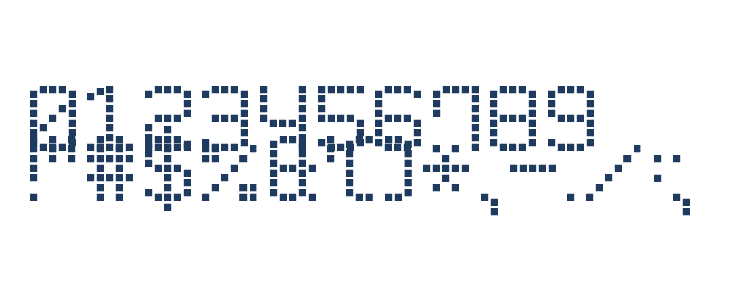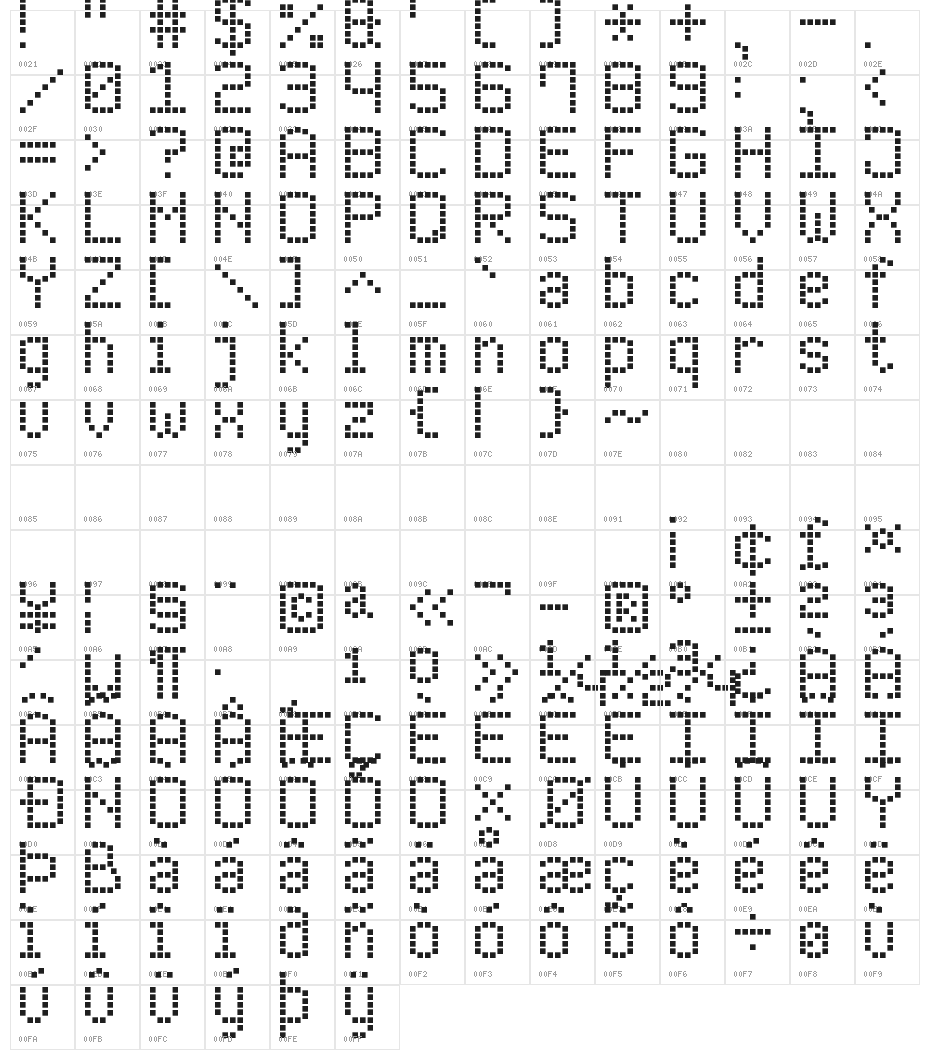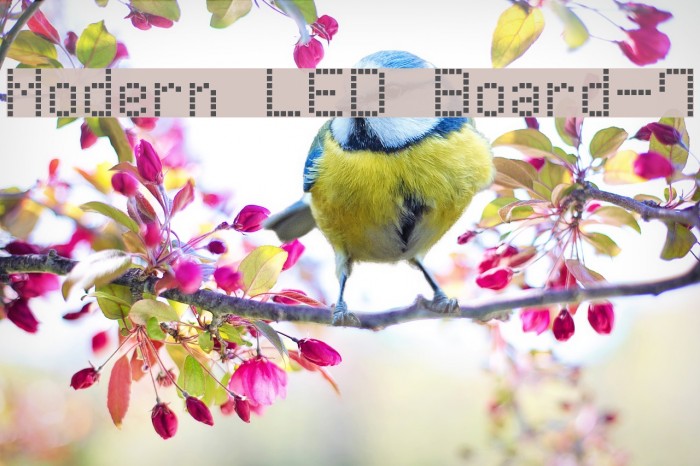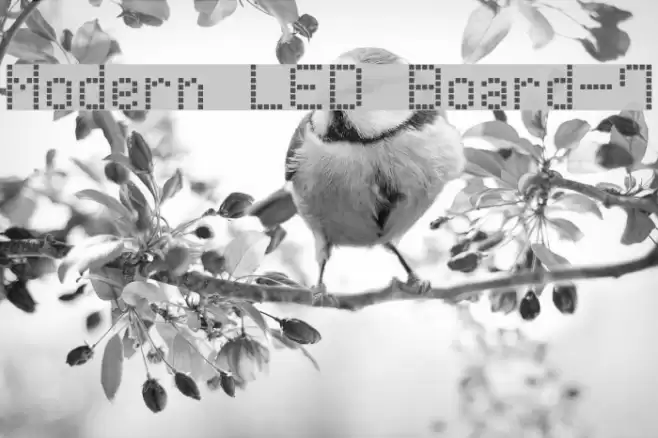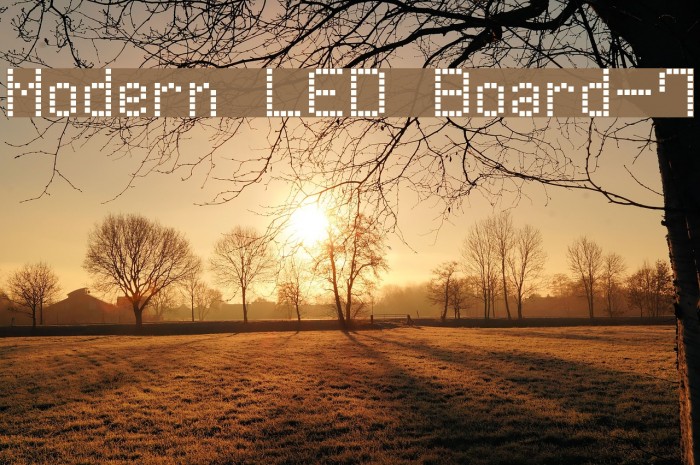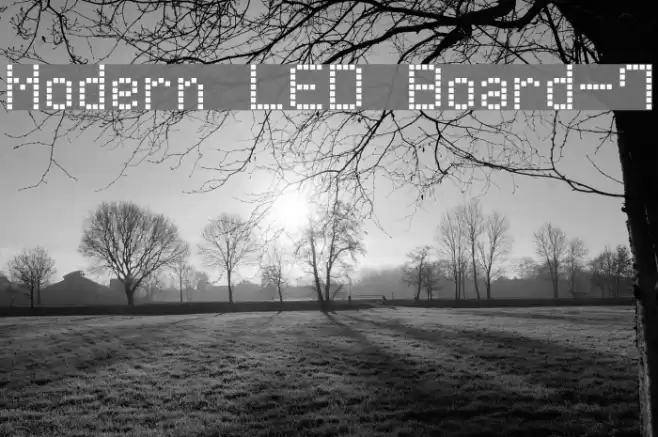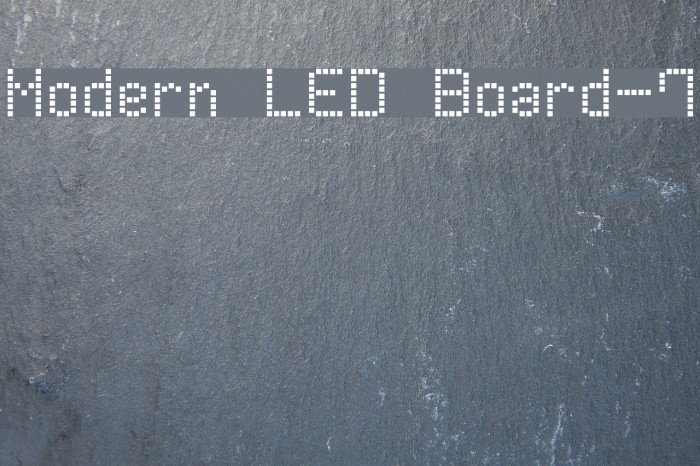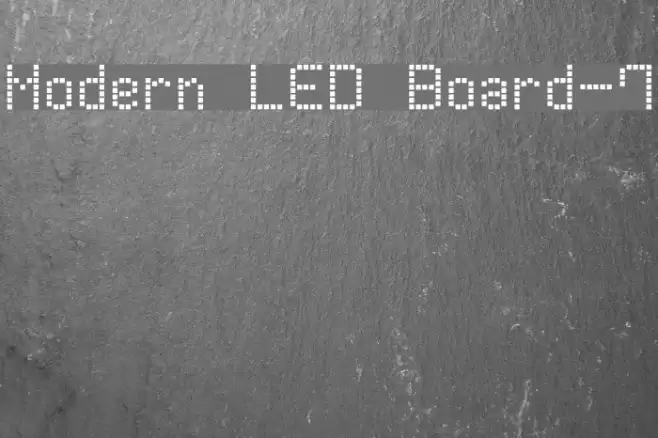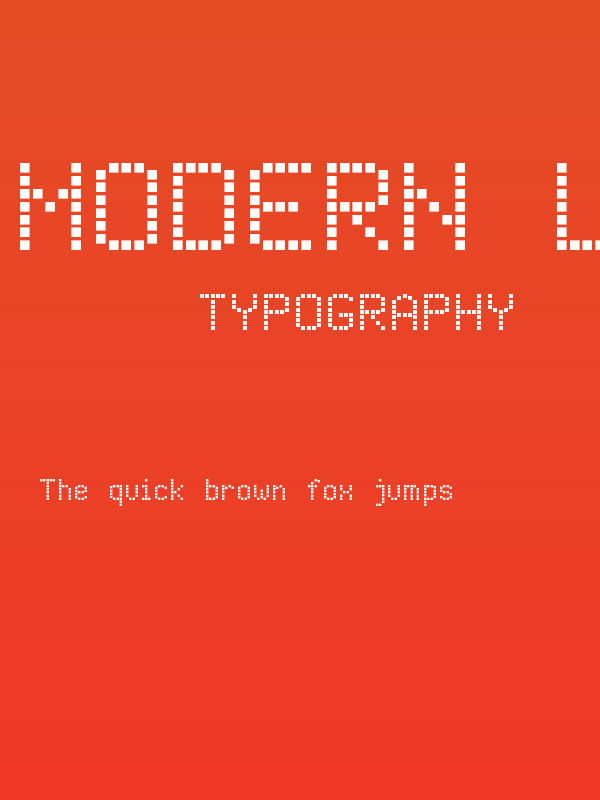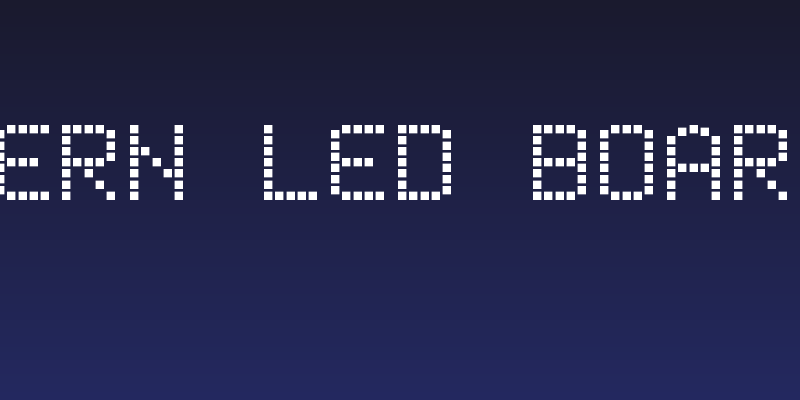
Modern LED Board-7 Font
Modern LED Board-7 Description
This font is a pixelated, digital-style typeface that mimics the appearance of LED displays. Each character is composed of a grid of dots, creating a distinct, retro-futuristic aesthetic. The design is highly geometric, with uniform spacing between the dots, giving it a structured and mechanical feel. The uppercase and lowercase letters, as well as numbers and special characters, maintain a consistent dot matrix pattern, enhancing readability while preserving the digital theme. This font is ideal for projects that require a technological or vintage digital look, such as digital clocks, electronic displays, or retro-themed designs.
| Proposed Projects | Ideal for digital clocks, electronic displays, retro-themed designs, and tech-related branding. |